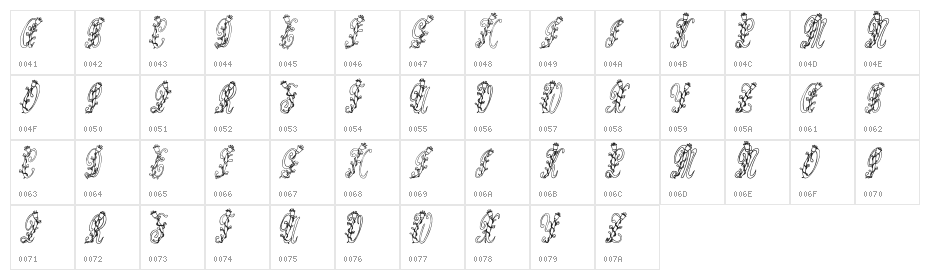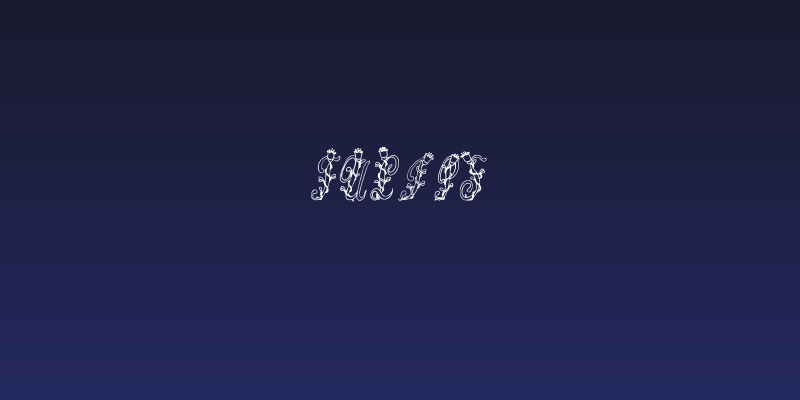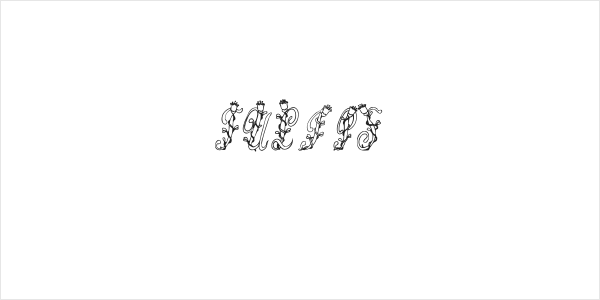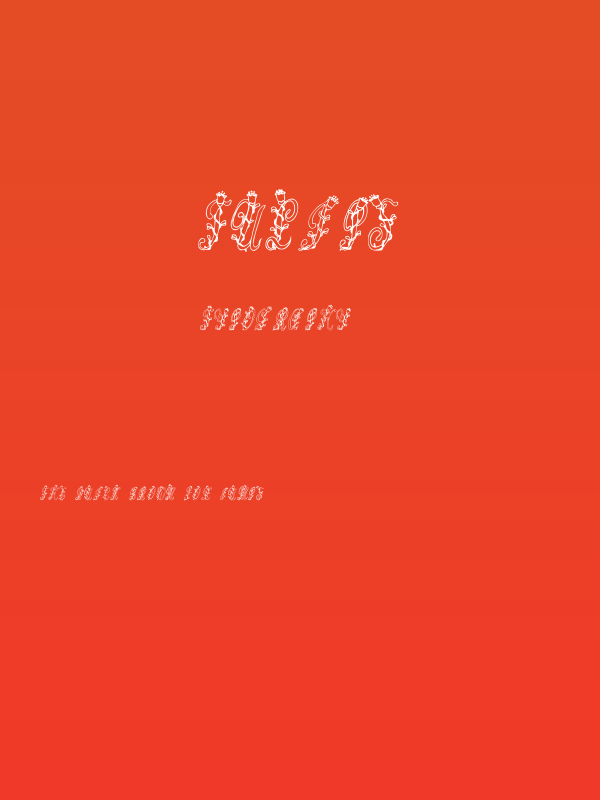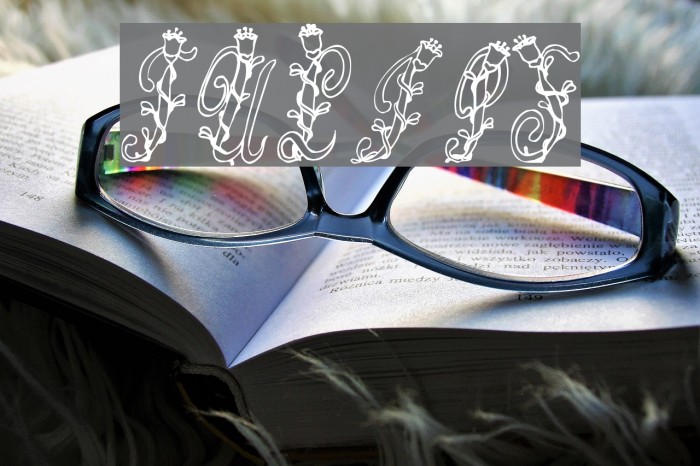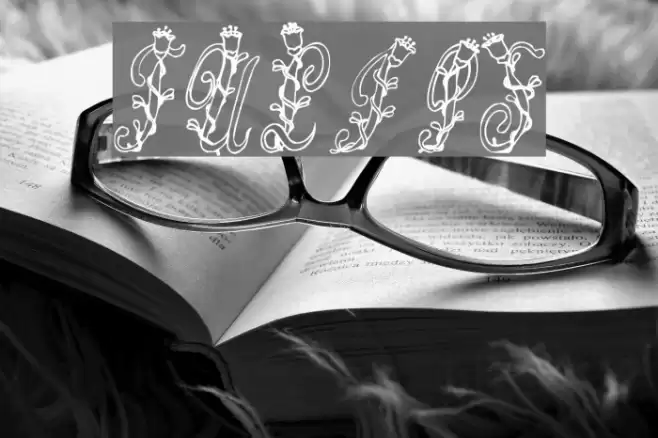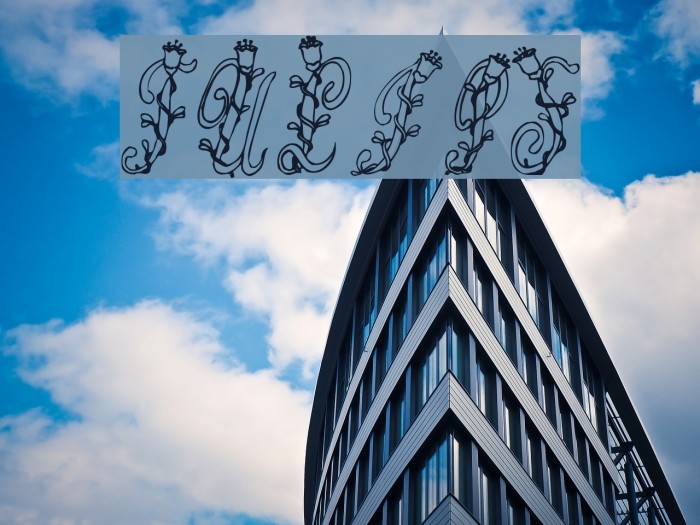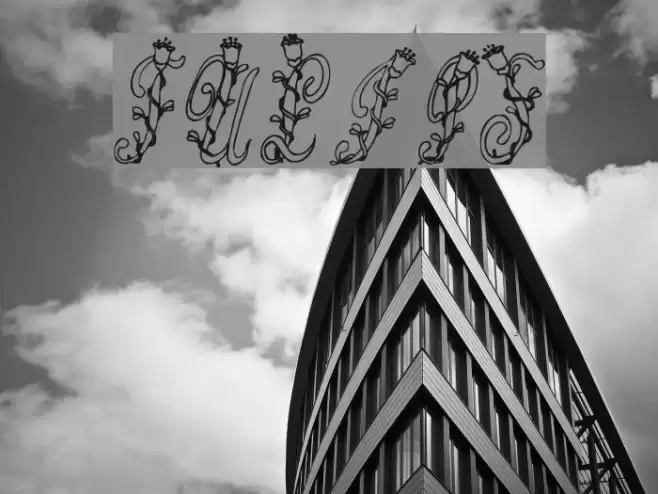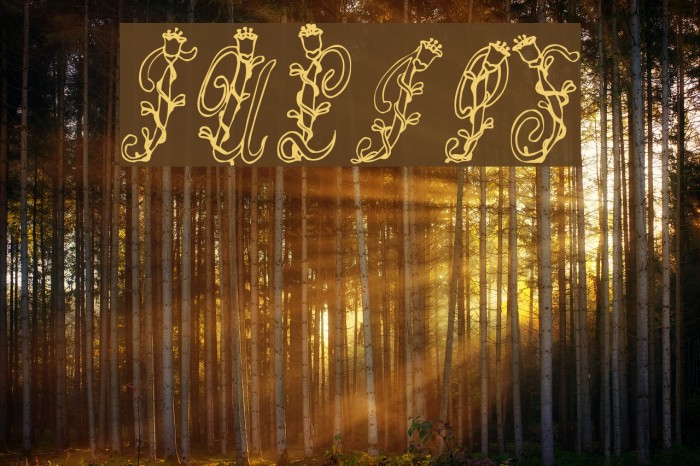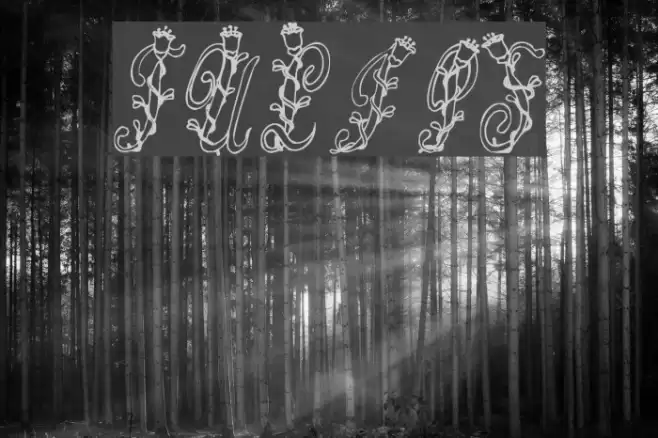
Tulips Font
Tulips Description
This decorative font features intricate floral designs intertwined with each letter, creating an elegant and ornate appearance. The letters are embellished with delicate tulip motifs, giving the font a whimsical and artistic flair. Each character is uniquely crafted, with flowing lines and detailed embellishments that make it stand out. The font's style is reminiscent of vintage botanical illustrations, combining a sense of nature with artistic expression. It is perfect for projects that require a touch of elegance and creativity, such as wedding invitations, greeting cards, or artistic branding.
| Use Case | Headlines, Artistic projects, Invitations |
| Proposed Projects | Ideal for wedding invitations, greeting cards, artistic branding, and decorative projects. |